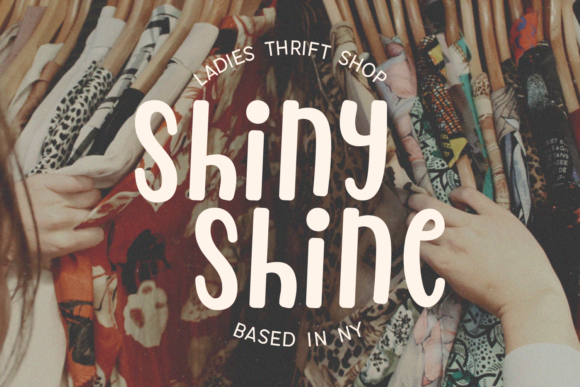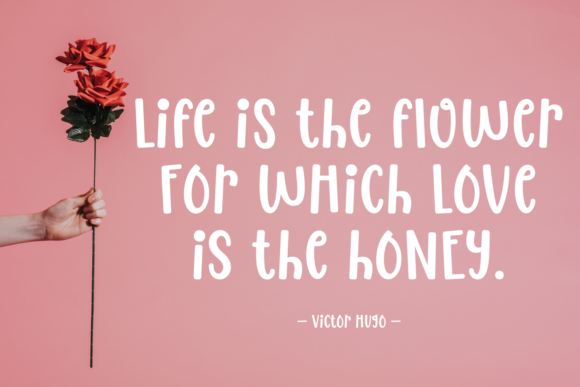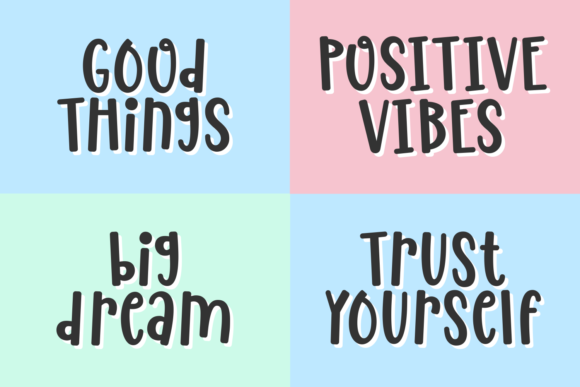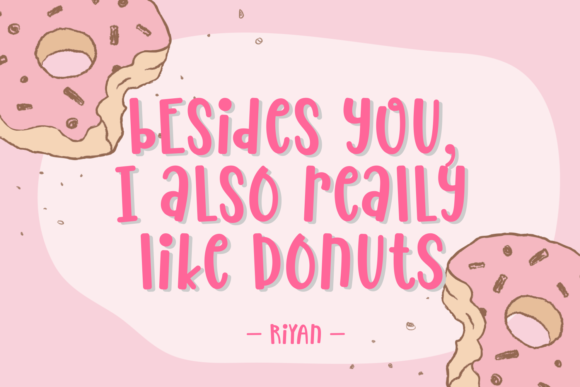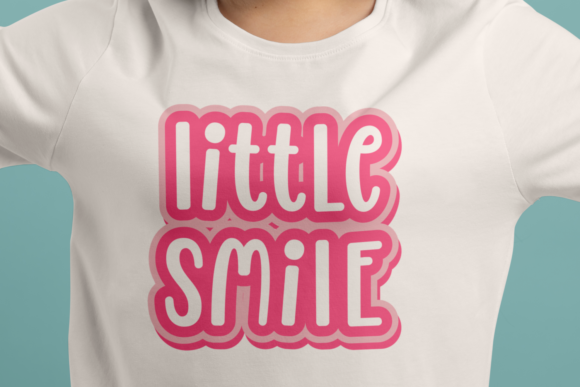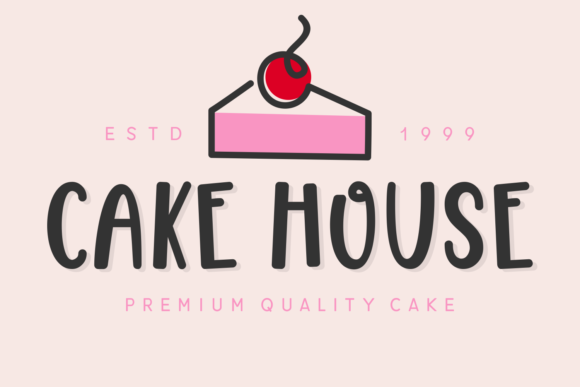
Introducing Cheerfully Font: Add a Touch of Joy to Your Designs
Are you tired of using the same old fonts in your designs? Do you want to add a playful and youthful touch to your projects? Look no further than Cheerfully Font, a joyful and quirky handwritten font that’s perfect for designers and crafters alike. In this article, we’ll explore the features and benefits of Cheerfully Font, and show you how to use it to create stunning designs that will capture your audience’s attention.
What is Cheerfully Font?
Cheerfully Font is a unique and charming handwritten font that’s designed to bring a smile to your face. With its playful and carefree vibe, this font is perfect for adding a touch of whimsy to your designs. Whether you’re creating a storybook, book cover, poster, banner, business card, or branding material, Cheerfully Font is the perfect choice.
Key Features of Cheerfully Font
- Handwritten with love: Cheerfully Font is a carefully crafted handwritten font that’s designed to look like it was written with love and care.
- Joyful and quirky: This font is perfect for designers who want to add a playful touch to their designs.
- Youthful vibe: Cheerfully Font is perfect for designs that need a youthful and energetic feel.
- Versatile: Use Cheerfully Font for a wide range of design projects, from storybooks to business cards.
Benefits of Using Cheerfully Font
So why choose Cheerfully Font for your designs? Here are just a few benefits of using this amazing font:
- Adds a personal touch: Cheerfully Font is a unique and personal font that will add a touch of warmth to your designs.
- Perfect for kids’ designs: This font is perfect for designing materials for kids, such as storybooks, children’s party invitations, and more.
- Great for branding: Use Cheerfully Font to create a playful and youthful brand identity that will appeal to a wide range of audiences.
- Easy to read: Despite its playful nature, Cheerfully Font is easy to read and understand, making it perfect for body text and headings.
Design Ideas Using Cheerfully Font
Now that you know more about Cheerfully Font, here are some design ideas to get you started:
- Storybooks: Create a beautiful storybook with Cheerfully Font as the main font.
- Book covers: Use Cheerfully Font to create eye-catching book covers that will stand out on bookshelves.
- Posters and banners: Create stunning posters and banners with Cheerfully Font for advertising, events, or promotions.
- Business cards and branding: Use Cheerfully Font to create playful and youthful business cards and branding materials.
Tips for Using Cheerfully Font
Here are some tips for getting the most out of Cheerfully Font:
- Use it with contrasting colors: Pair Cheerfully Font with contrasting colors to make it stand out.
- Experiment with sizes: Try using Cheerfully Font in different sizes to create visual interest.
- Mix and match: Combine Cheerfully Font with other fonts to create a unique and interesting design.
In conclusion, Cheerfully Font is a joyful and quirky handwritten font that’s perfect for designers and crafters who want to add a playful touch to their designs. With its youthful vibe and versatile nature, this font is perfect for a wide range of design projects. Whether you’re creating a storybook, book cover, poster, banner, business card, or branding material, Cheerfully Font is the perfect choice. So why wait? Download Cheerfully Font today and start creating stunning designs that will capture your audience’s attention!